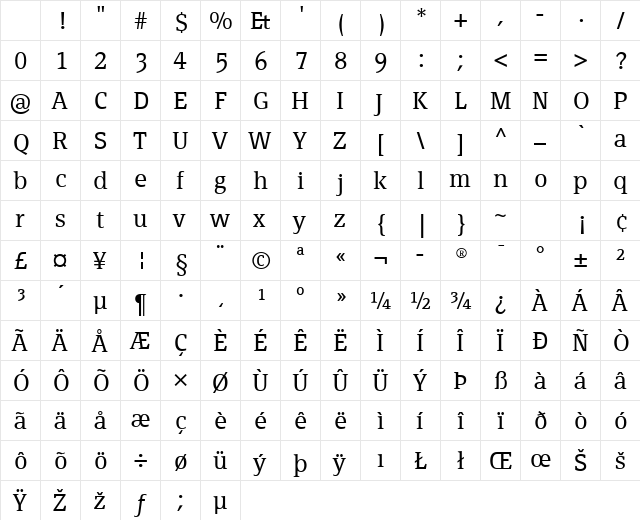
PageSerifTF-Light carries the refined structure of traditional serif typography, with bracketed terminals and considered proportions that communicate credibility and craft. Its slender proportions lend an understated elegance to any composition.